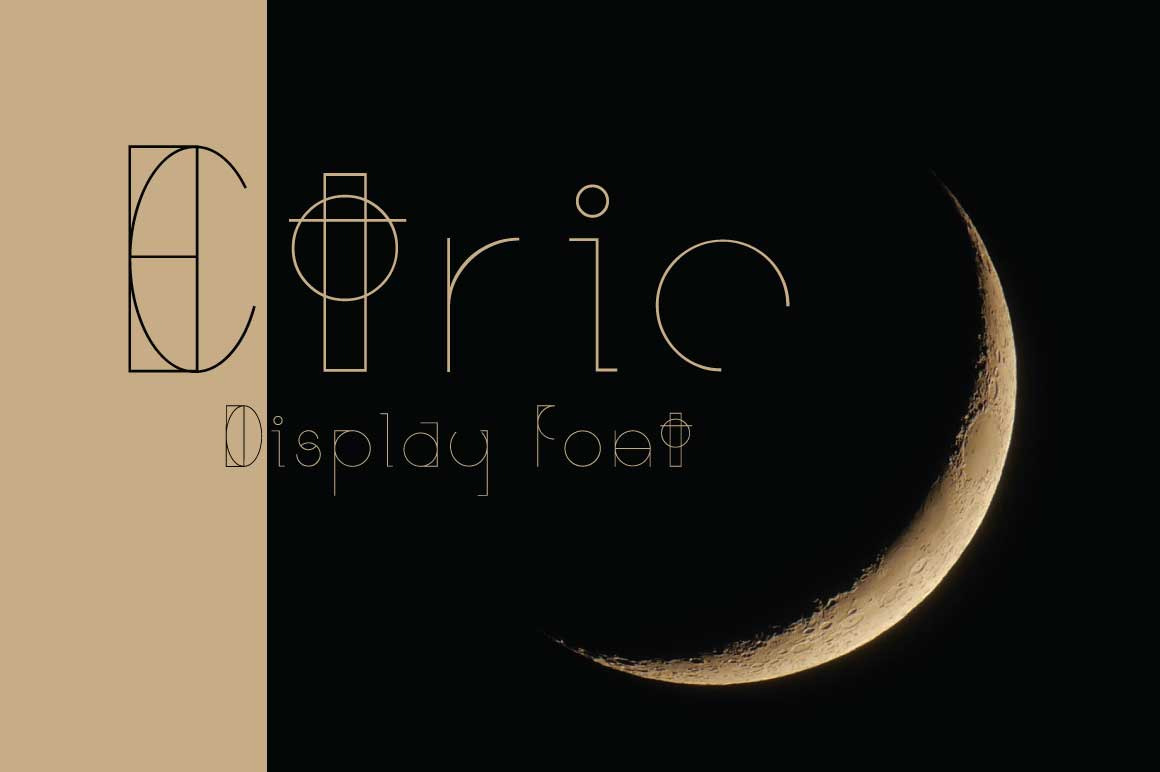
Etric Typeface
Best used for headings. Or phrases. Or quote posters. Especially headings, phrases, and quote posters that encourage people to contemplate our place in the universe.